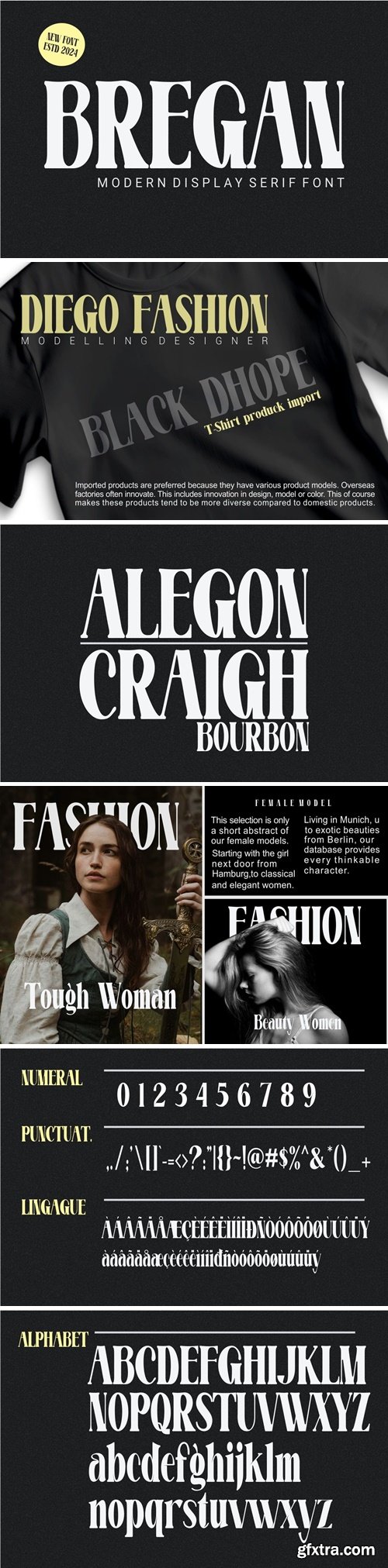
Bregan - Modern Display Serif Font
Bregan - Modern Display Serif Font - Modern Font is a bold and authentic display font. The font is suitable for any branding project like logo, t-shirt printing, esport, and many more. outstanding in a wide range of contexts.
Uppercase
lowercase
multilingua